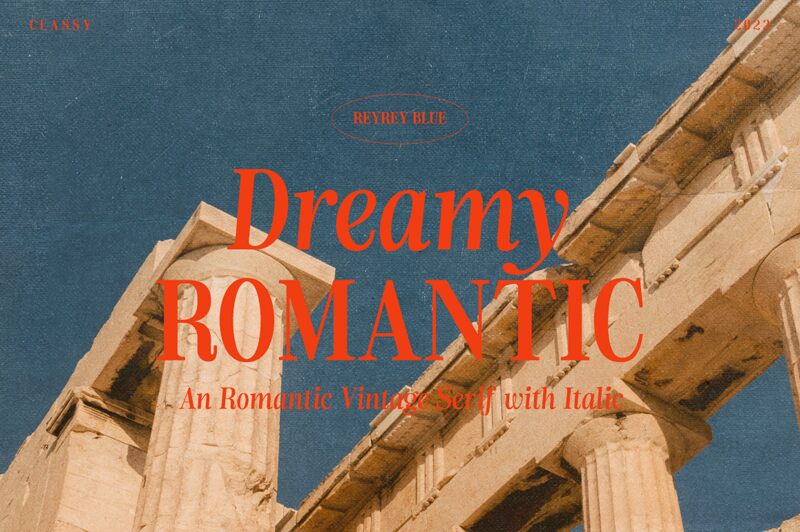
Dreamy Romantic, a creation of ReyreyBlue, invites you into a world where elegance meets whimsy. This serif font dances between classic refinement and playful charm, making each character feel like a tender whisper of nostalgia paired with modern flair. The gentle curves and subtle flourishes evoke a sense of bespoke craftsmanship, perfect for invoking warmth and emotion in your projects.
This font finds its home across a spectrum of design needs; from wedding invitations that require a touch of sophistication to book covers that desire an air of mystery and romance. Dreamy Romantic is also well-suited for branding that aims to strike a balance between artisanal beauty and contemporary appeal, ensuring your message is delivered with heartfelt grace.